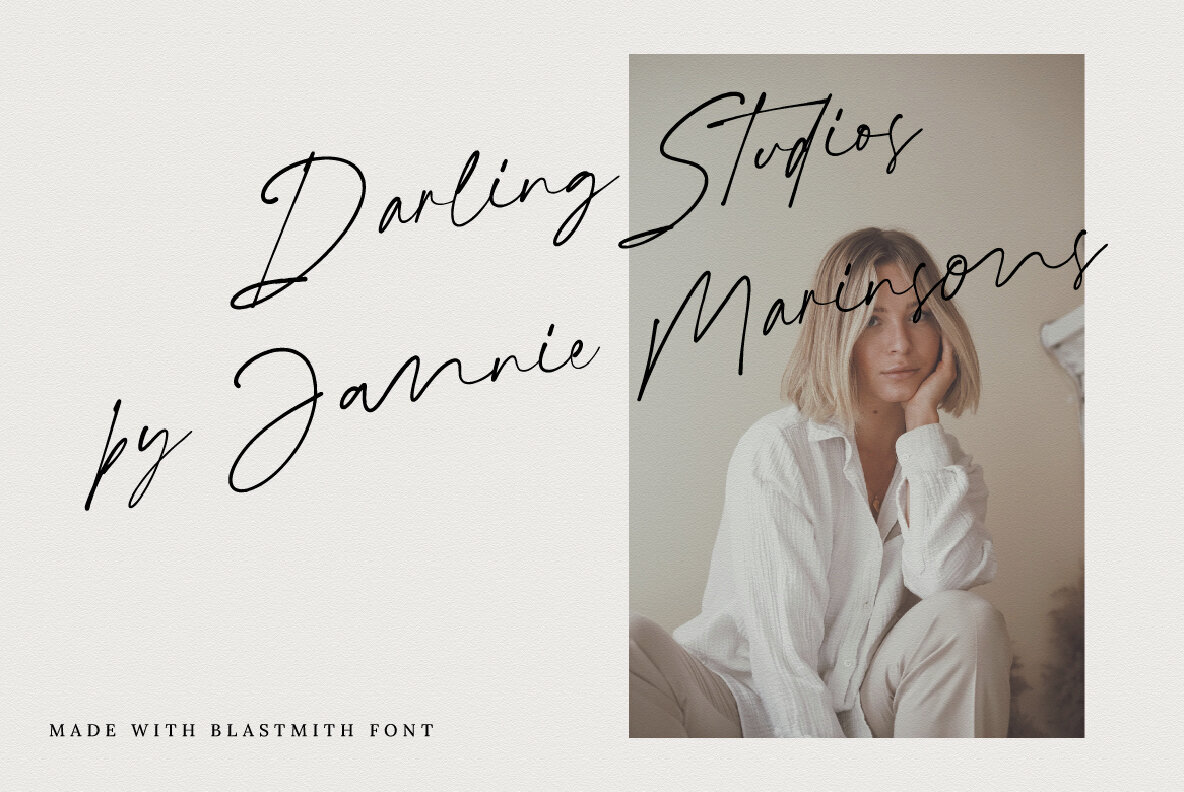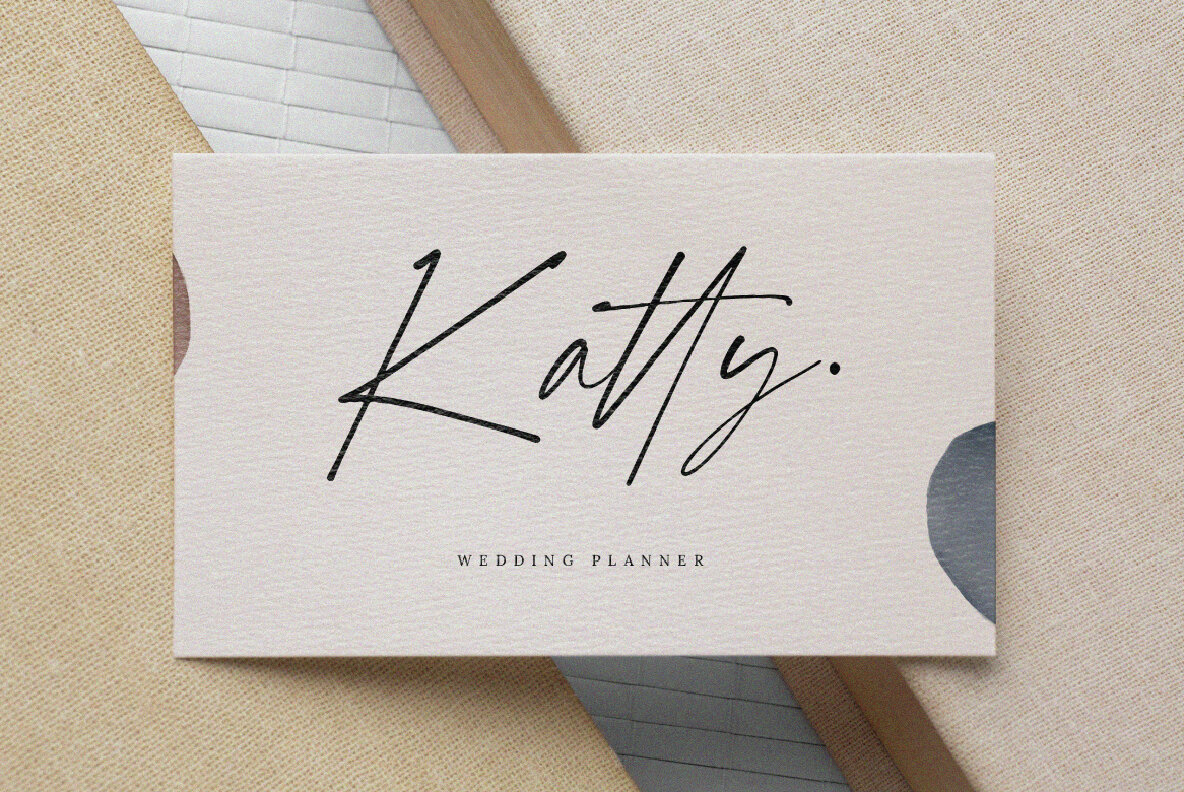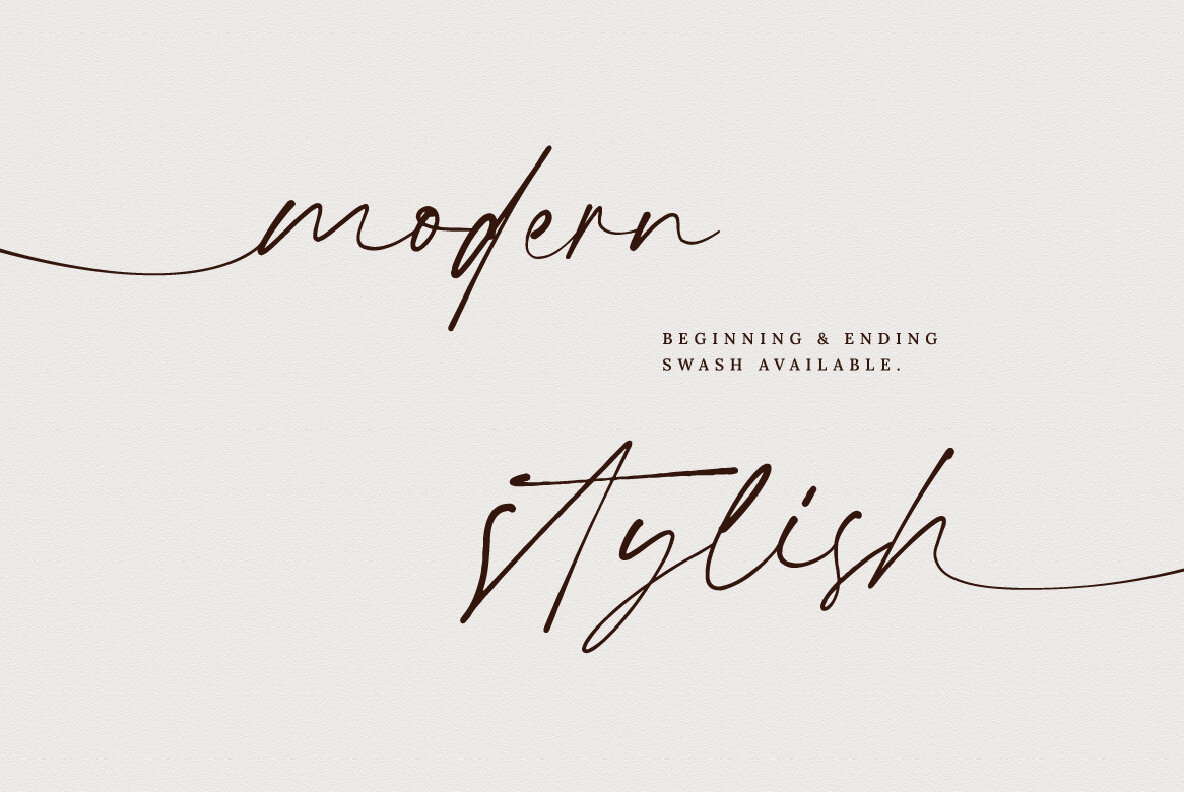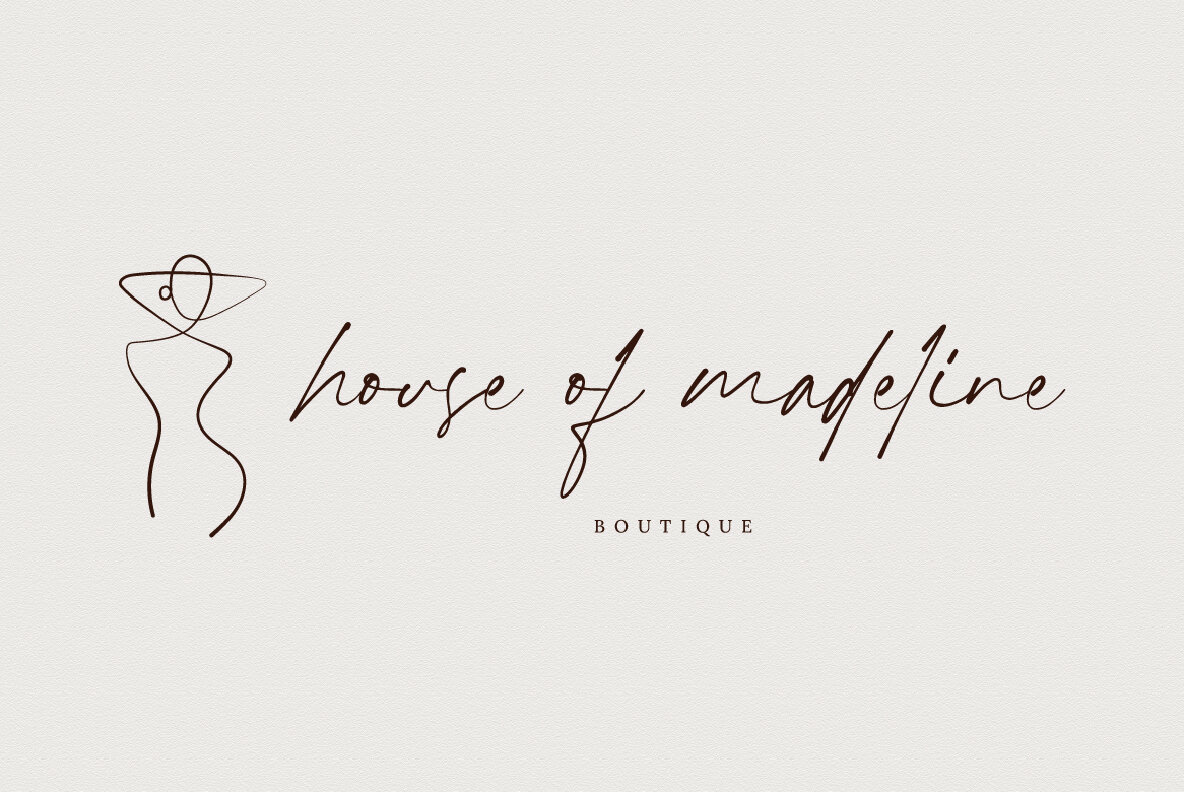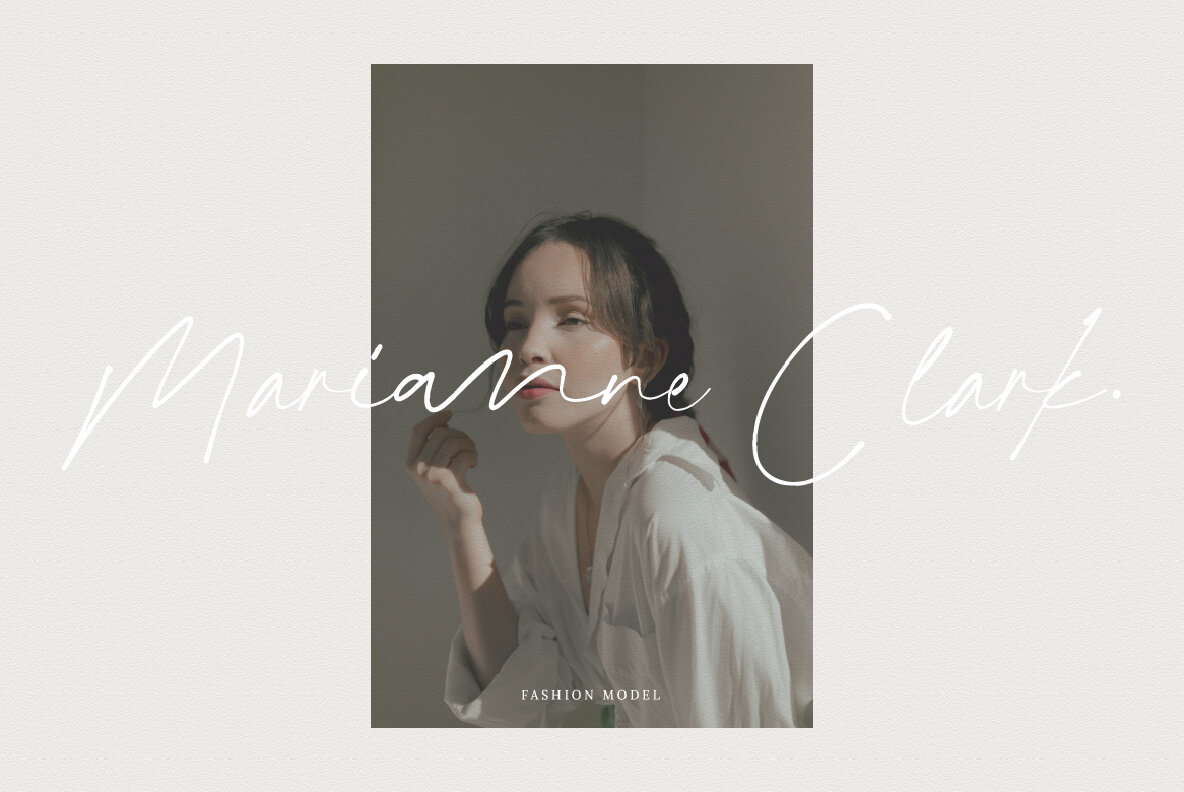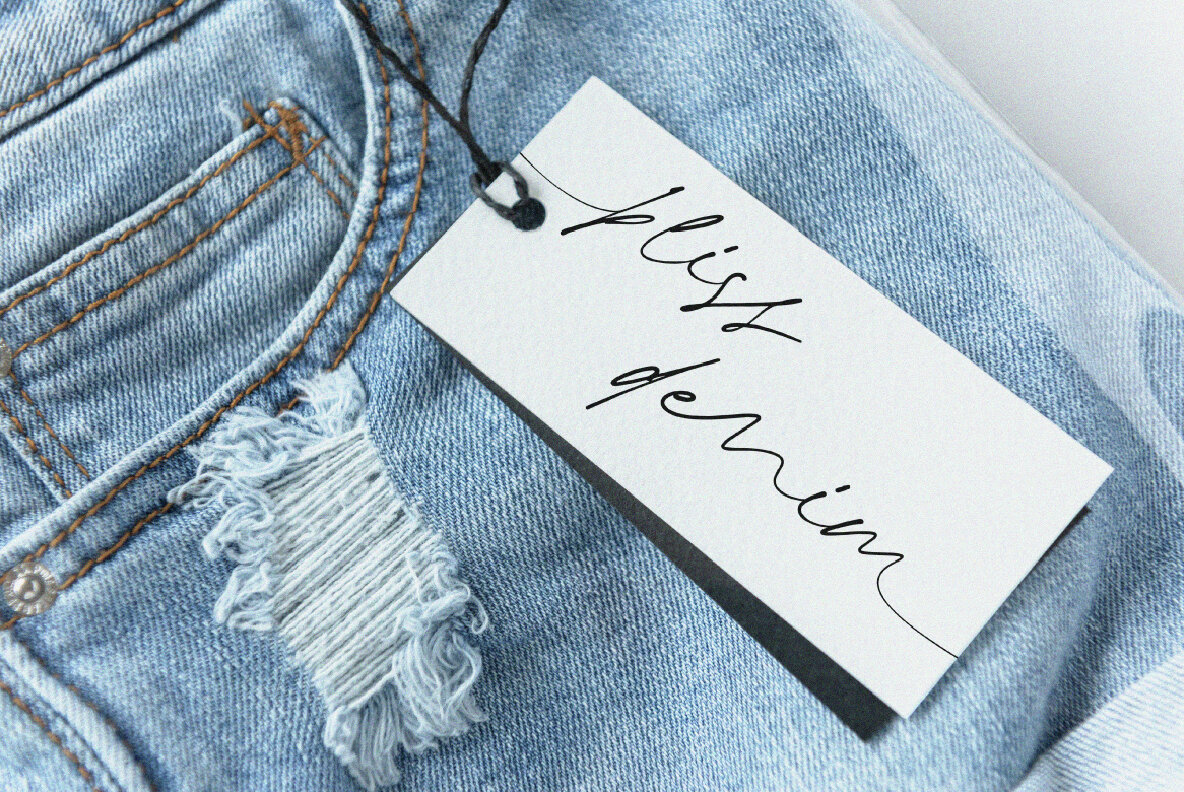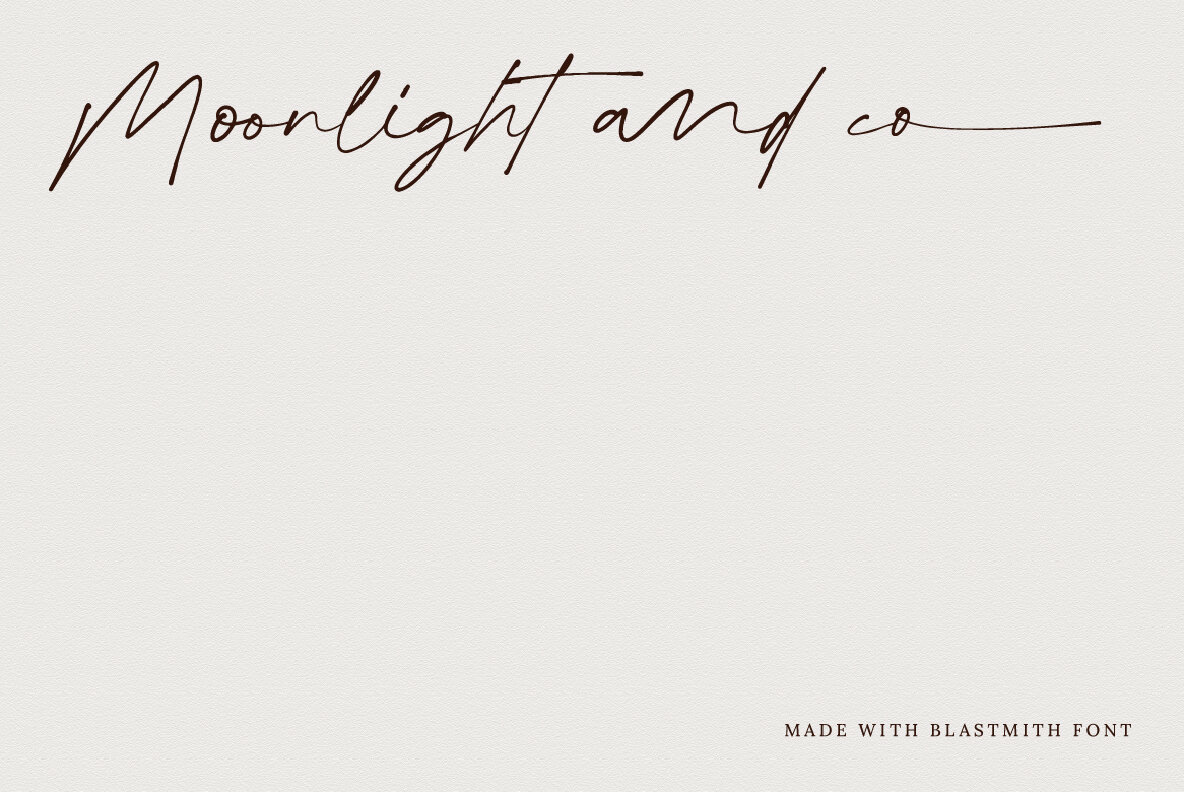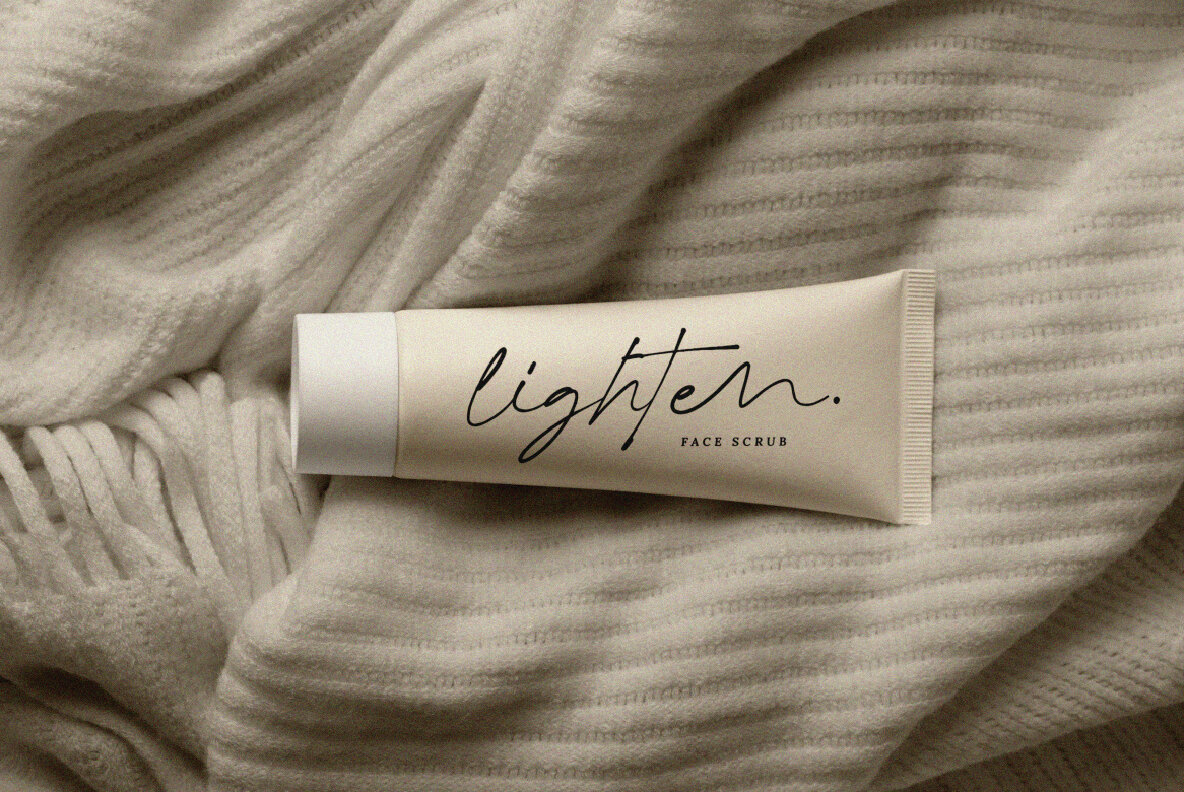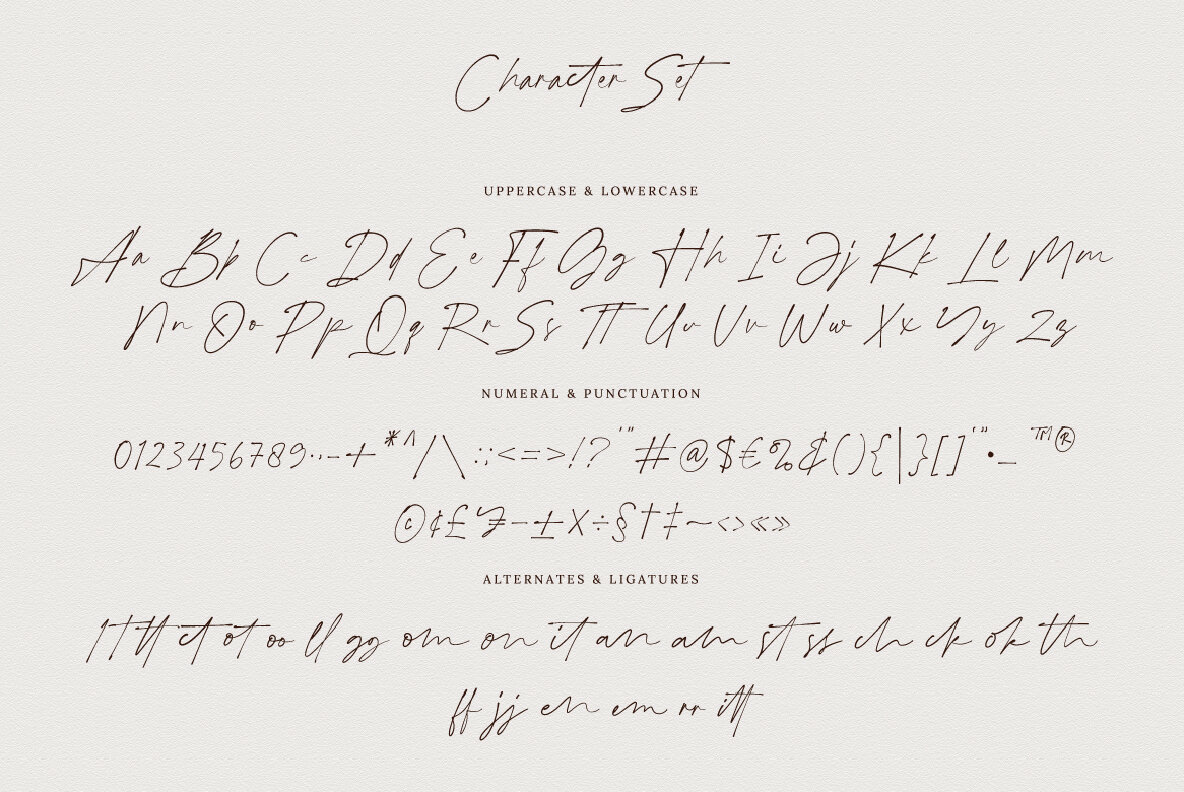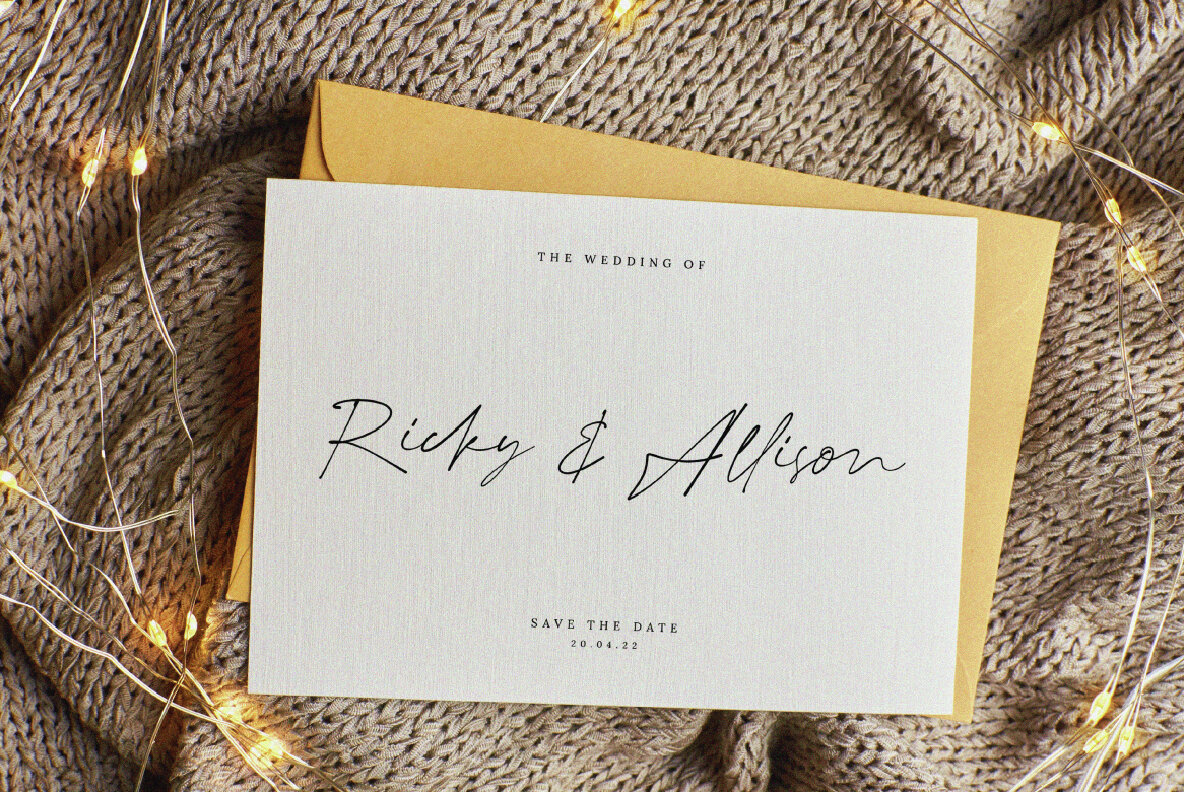
Blastmith Font
Blastmith Regular
"Blastmith" is a modern cursive typeface with a stylish, signature-like appearance. Its ligatures and swash characters offer a natural touch, making it ideal for:
Designed by Prio Nurokhim Aji.